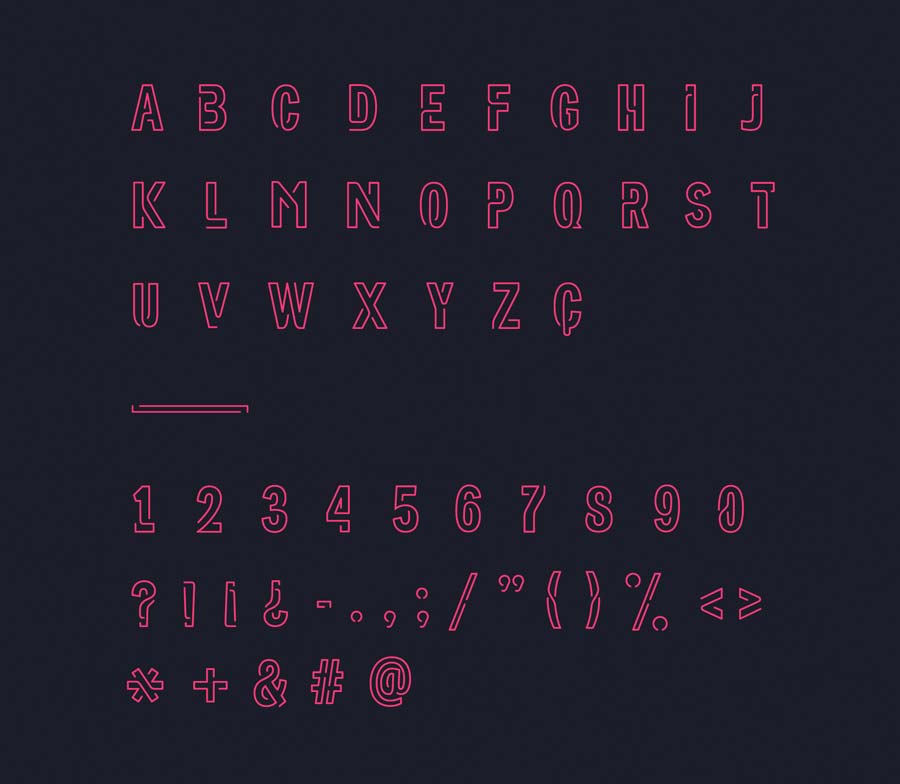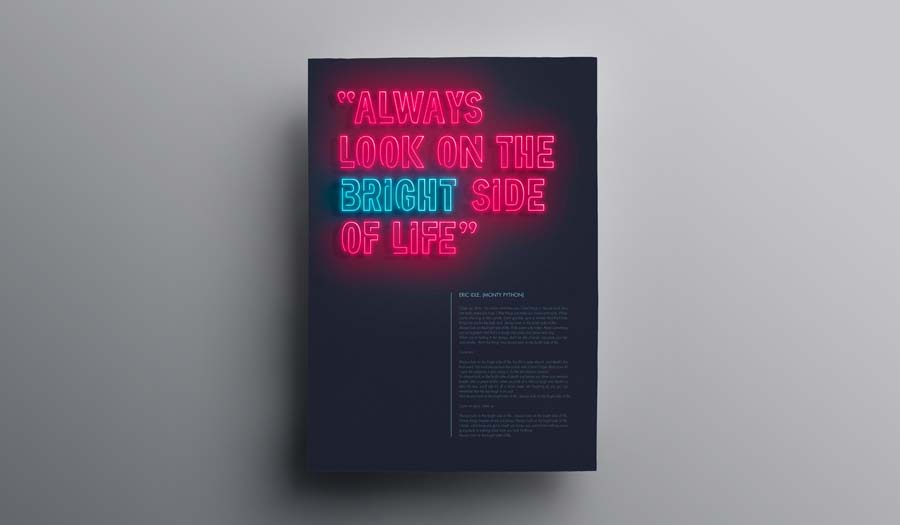
As the font name suggests, Neoneon is a free font inspired by 80’s style neon signage. Each of the letters are designed with using only one stroke to simulate the real neon light displays, and it resulted in really interesting letter designs.
Neoneon is the first typeface released by Bakoom Studio. This font could work perfectly on headlines, covers, advertisements and graphic poster designs. It works even better with added light glow effect.